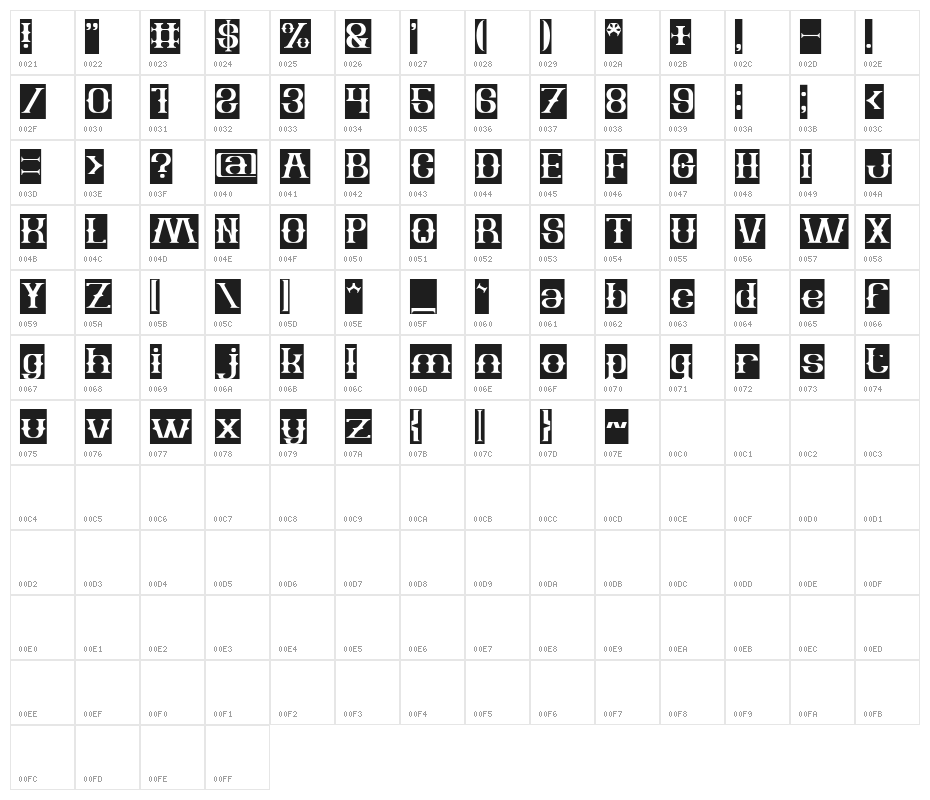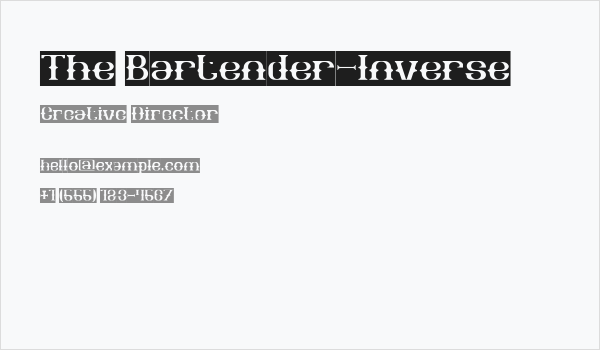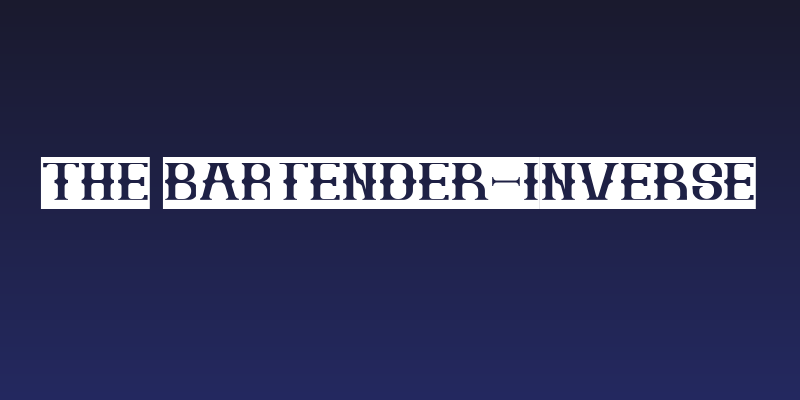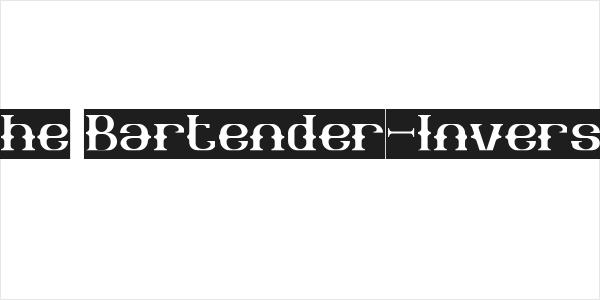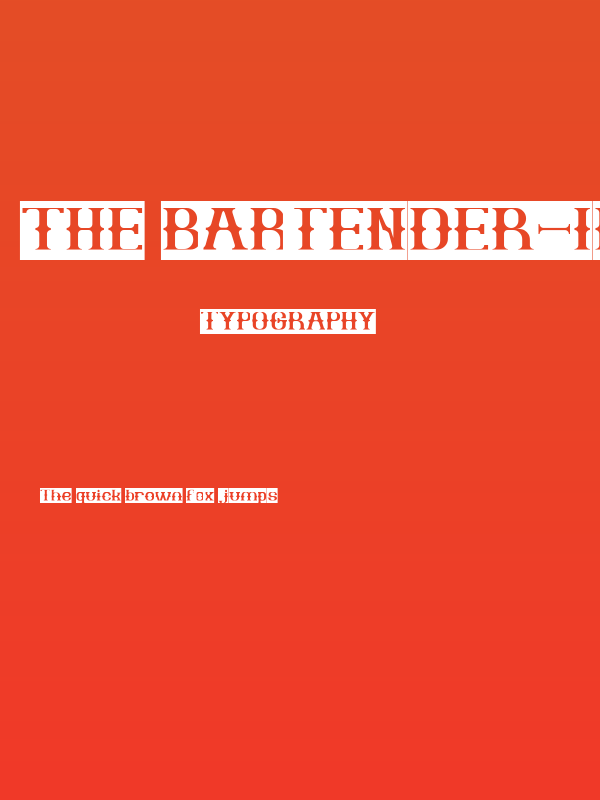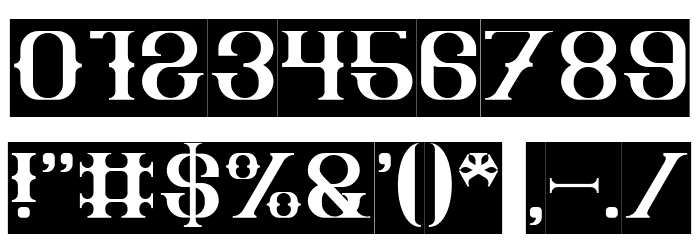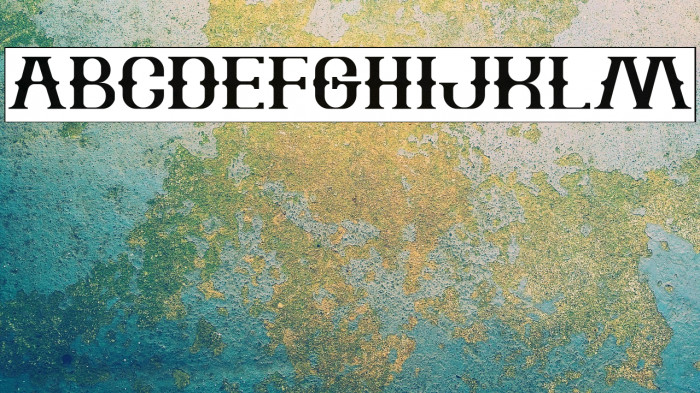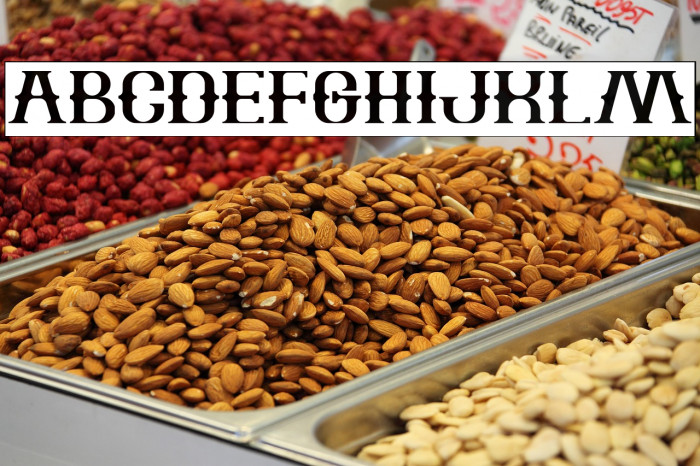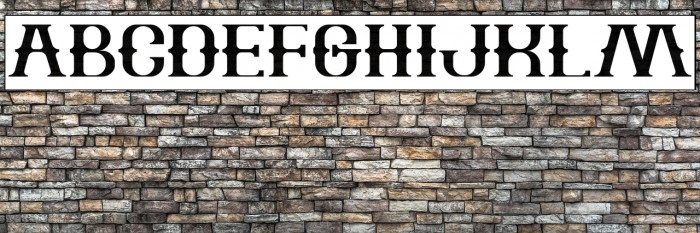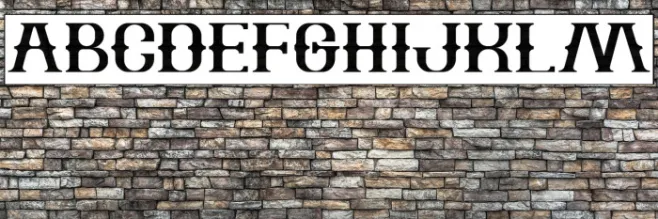
The Bartender-Inverse Font
The Bartender-Inverse Description
This font features a bold and decorative style with high contrast between thick and thin strokes. The characters have a unique, stencil-like appearance, with cut-out sections that create an eye-catching effect. The uppercase letters are particularly striking, with sharp serifs and a strong presence. The lowercase letters maintain the same decorative style, ensuring consistency throughout the typeface. Numbers and special characters are designed with the same bold, cut-out aesthetic, making them stand out. This font is ideal for projects that require a vintage or retro feel, adding a touch of elegance and flair.
| Proposed Projects | Ideal for vintage posters, branding, packaging, and signage that require a bold statement. |